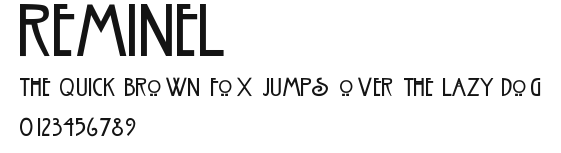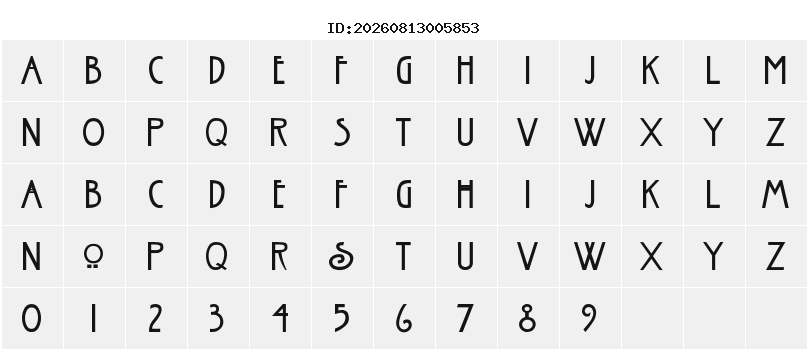
About Reminel.ttf
Reminel.ttf is a modern, elegant sans-serif font designed for ultimate readability and visual harmony. Perfect for branding, headlines, web design, and print materials.